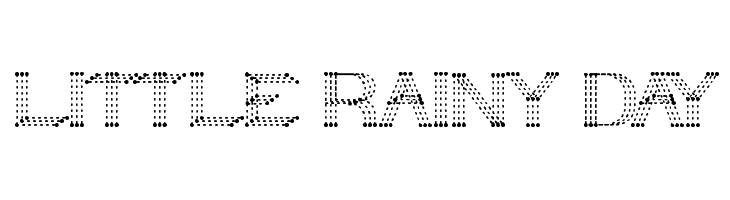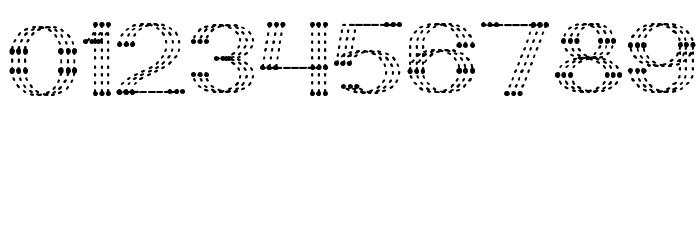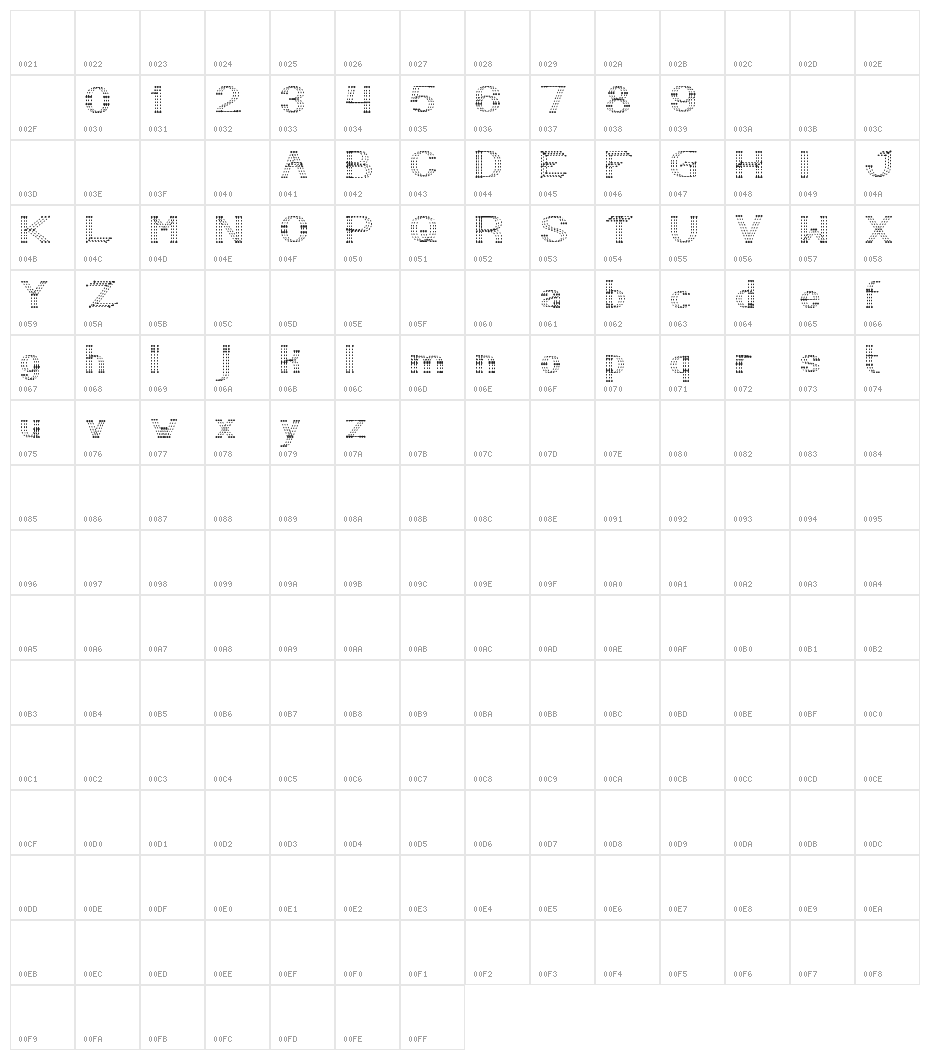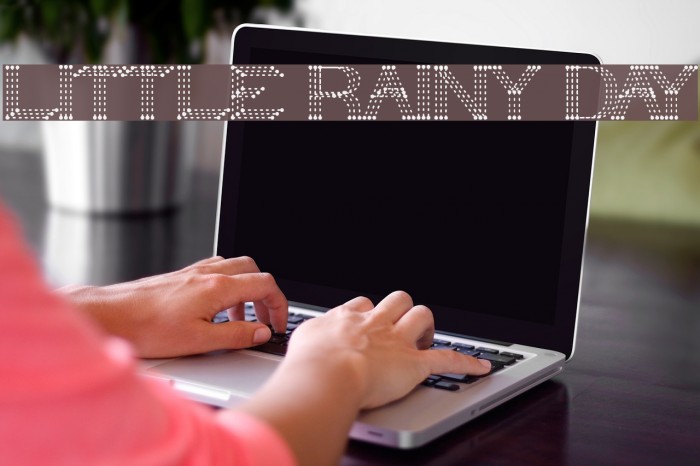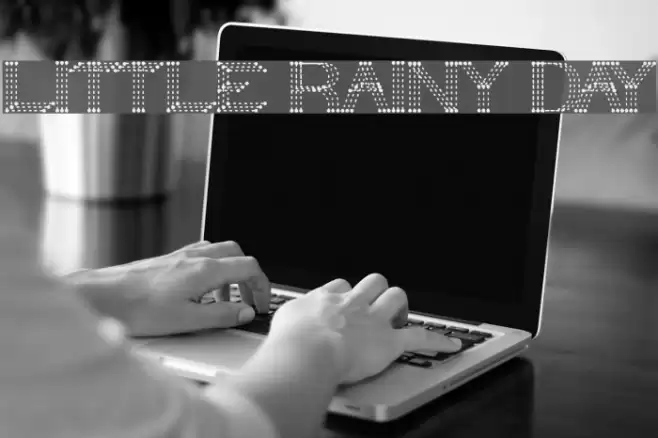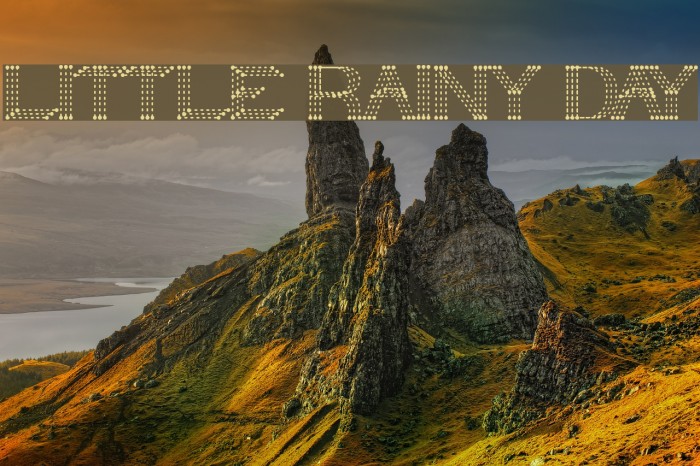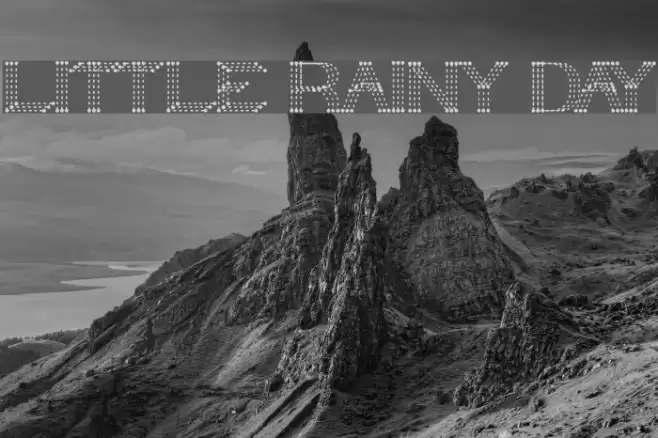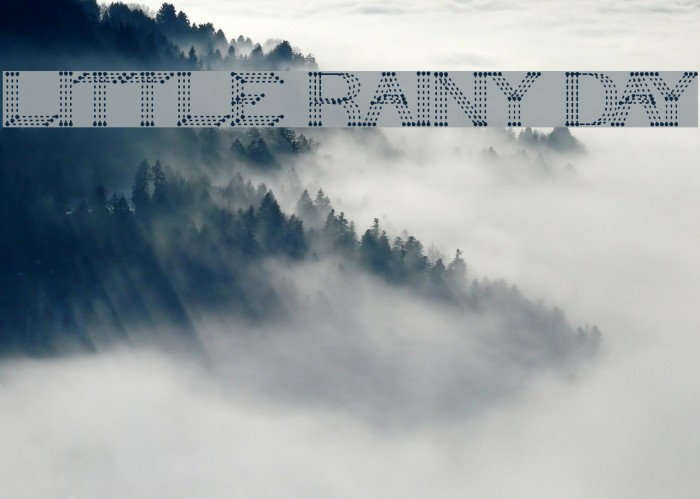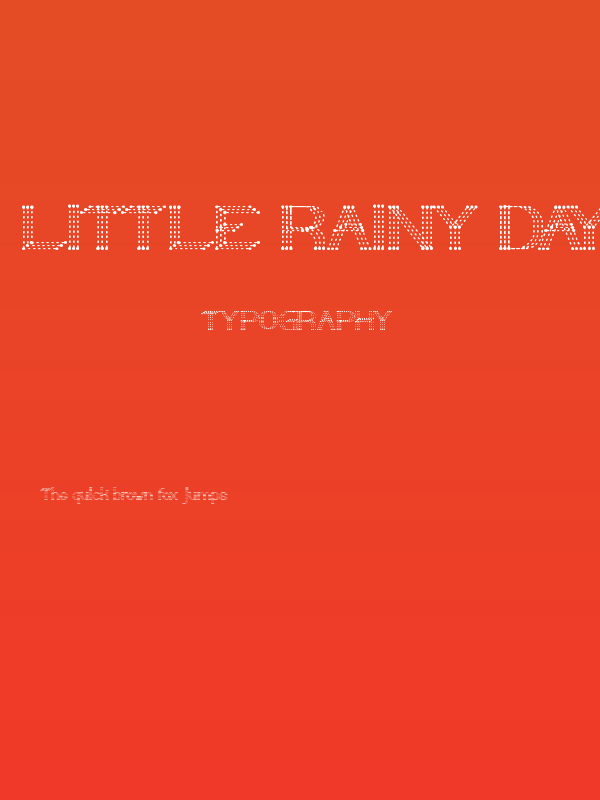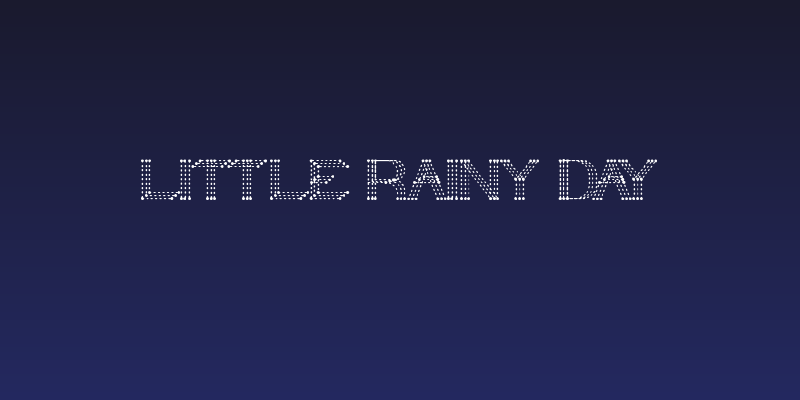
LITTLE RAINY DAY Font
LITTLE RAINY DAY Description
This font features a unique design composed entirely of small, evenly spaced dots that form each character. The dots create a playful and visually intriguing pattern, giving the font a distinctive and modern appearance. The characters maintain a consistent structure, with each letter and number clearly recognizable despite the unconventional style. The font's dotted texture adds a sense of lightness and creativity, making it suitable for projects that aim to capture attention and convey a sense of fun or innovation.
| Use Case | Logos, Posters, Creative projects |
| Proposed Projects | Ideal for children's books, playful branding, creative posters, and modern art projects. |